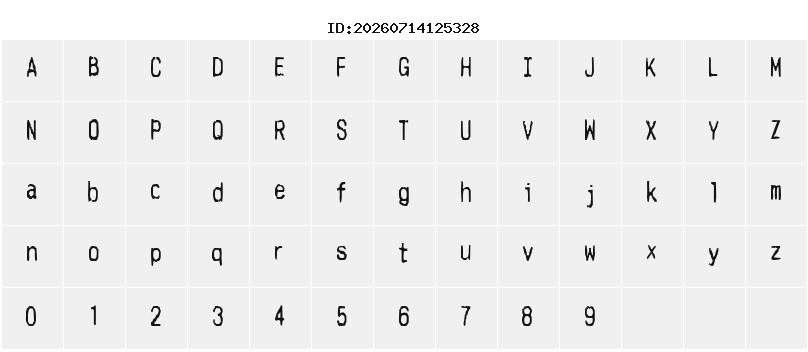
• Font Name: Harsh language
• Full Font Name: Harsh language
Harsh language.ttf is a modern, elegant sans-serif font designed for ultimate readability and visual harmony. Perfect for branding, headlines, web design, and print materials.